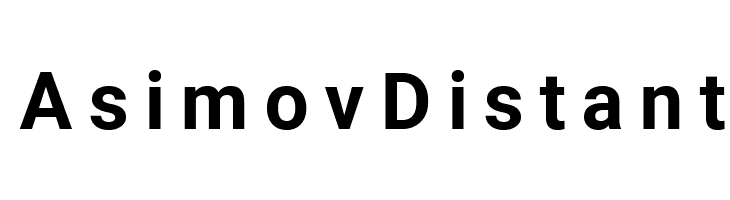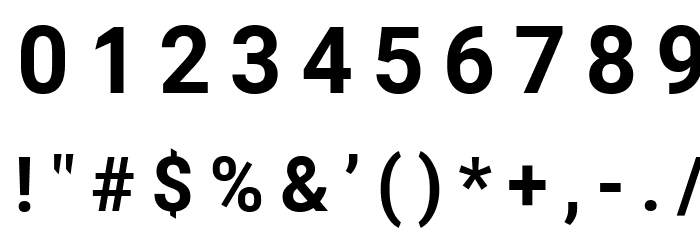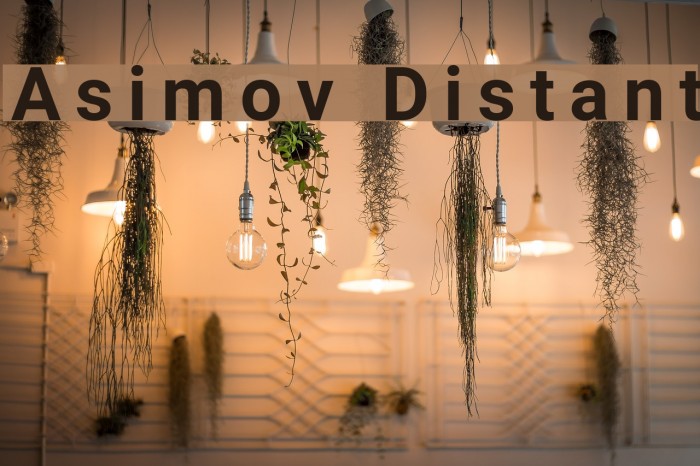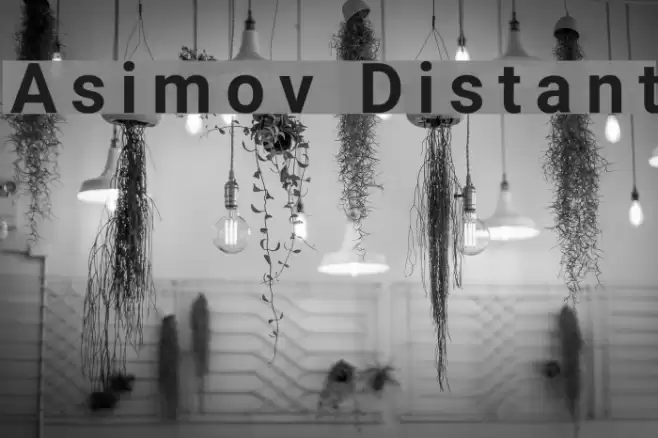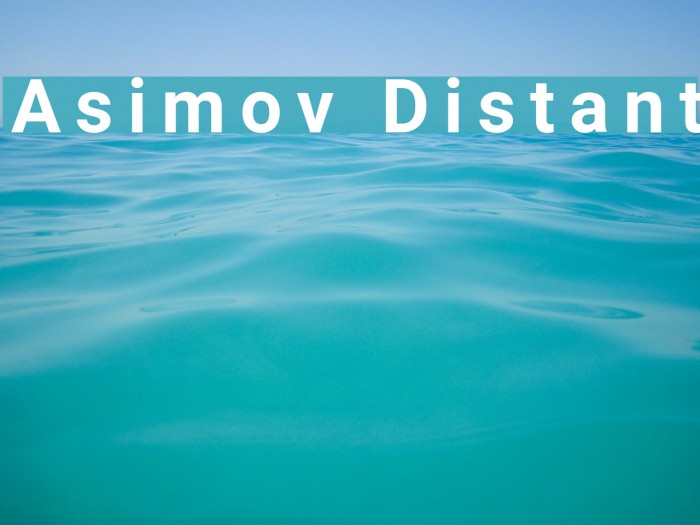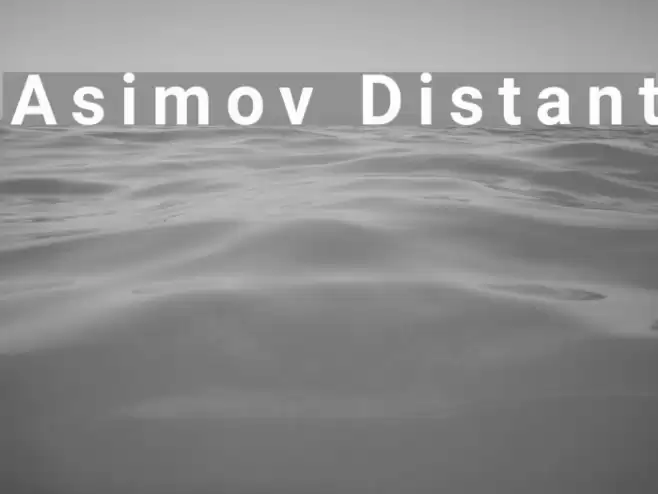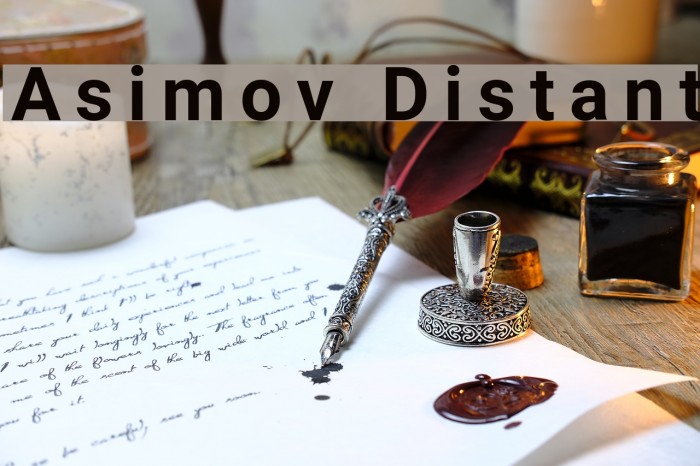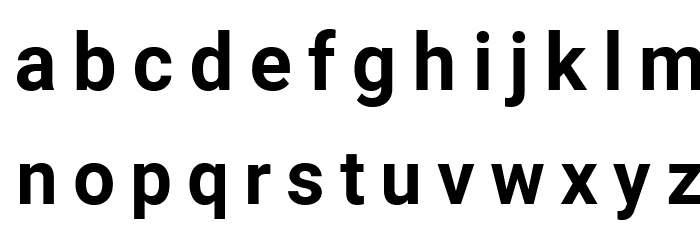
Asimov Distant Font
Asimov Distant Description
This font features a clean and modern sans-serif design with uniform stroke widths and a geometric structure. The characters are well-balanced, offering a contemporary feel that is both professional and approachable. The uppercase letters are bold and assertive, while the lowercase letters maintain a consistent style that complements the overall aesthetic. The numerals are clear and easily readable, making them suitable for a variety of applications. Special characters are included, adding versatility to the font's use. The overall design is minimalistic, focusing on clarity and functionality.
| Use Case | Headlines, Body text, Logos |
| Proposed Projects | Ideal for corporate branding, web design, digital media, and print materials requiring a modern and professional look. |